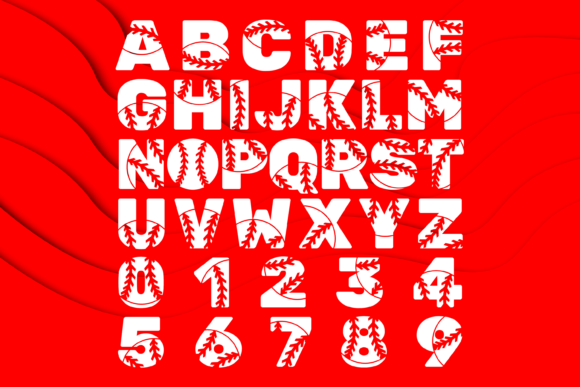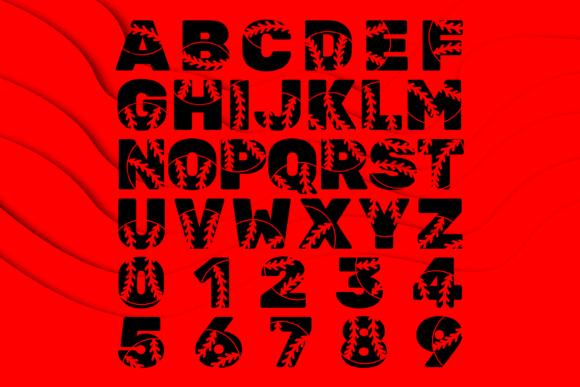
Introduction to Pitcher Font
Have you ever stared at a blank canvas, feeling the weight of a creative project on your shoulders? The blank page stares back, taunting you with its emptiness. But what if you had the perfect tool to spark that creative flame? Enter Pitcher Font, an incredibly cool decorative font that adds a touch of magic to any design.
Whether you’re a seasoned designer or a DIY enthusiast, Pitcher Font is an invaluable resource that elevates your creations to the next level. With its high-quality design and transparent background, this font is perfect for any project that requires a delicate balance of style and sophistication. And the best part? It’s available for free download, making it an accessible design resource for anyone looking to add a personal touch to their work.
Pitcher Font Key Features
- Unique, hand-drawn design ideal for creative projects requiring a touch of whimsy and elegance.
- Includes a transparent background, allowing for seamless integration into various design applications.
- Includes a wide range of glyphs, including uppercase and lowercase letters, numbers, and punctuation marks.
- Perfect for various design applications, including logos, branding materials, and editorial content.
Honest Review: Pitcher Font
As a designer, I’m always on the lookout for high-quality fonts to add some flair to my creative projects. The Pitcher Font caught my attention, and I decided to give it a try. Here’s my honest review.
- High-quality design: The Pitcher Font has a unique, elegant design that’s perfect for any creative project.
- Transparent background: This allows for easy customization and makes it perfect for use on transparent backgrounds or overlays.
- Limited font styles: While the design is great, there are limited font styles available, which might not be suitable for complex designs.
- Not ideal for small text: The font is best used for headings or larger text, as it can be difficult to read in smaller sizes.
Overall, I think the Pitcher Font is a great addition to any designer’s toolkit. While it has some limitations, its high-quality design and free download make it a valuable resource for creative projects. Just be mindful of its limitations when using it in your designs.
Pitcher Font
Tips for Getting the Most Out of Pitcher Font
Use Pitcher Font with a transparent background to create a seamless design. Experiment with different font sizes and styles to achieve the desired effect. You can also combine Pitcher Font with other design resources to create a unique and creative project.
Pitcher Font is suitable for a wide range of creative projects, including graphic design, digital art, and print design. It’s also a great resource for designers who want to create a unique and high-quality design.
With its clean lines and modern aesthetic, Pitcher Font is a must-have for any designer. Its high quality and ease of use make it an excellent choice for designers of all levels. So why wait? Download Pitcher Font today and discover the possibilities it has to offer. Whether you’re working on a creative project or simply looking to enhance your design skills, this font is sure to inspire and delight.